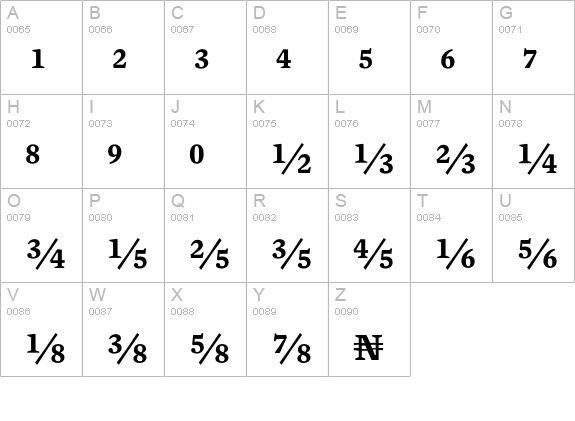
Mercury Numeric G4 Semibold is a sub-bold, structured variant in the Mercury typeface family \xE2\x80\x94 well suited to sub-headlines and emphasised passages.
Mercury Numeric G4 Semibold font is a modern and versatile typeface that exudes professionalism and sophistication. Its clean lines and bold presence make it perfect for a wide range of design projects, from branding to editorial layouts. The semibold weight adds a touch of emphasis without overwhelming the text, ensuring readability and impact. What sets Mercury Numeric G4 Semibold font apart is that it is available for free download at FontsMarket.com. This means that you can easily access and use this high-quality font without any cost, making it a valuable resource for designers, students, and anyone in need of a reliable and stylish typeface. Don't miss out on the opportunity to enhance your projects with the sleek and contemporary look of Mercury Numeric G4 Semibold font - get it now for free at FontsMarket.com!